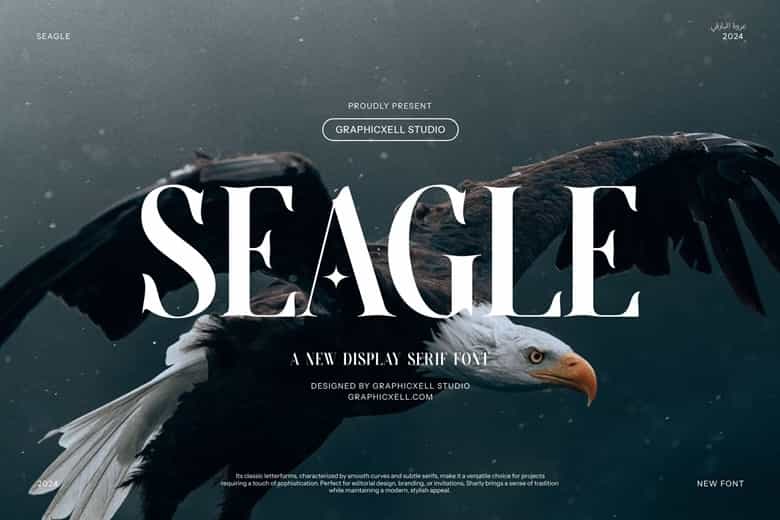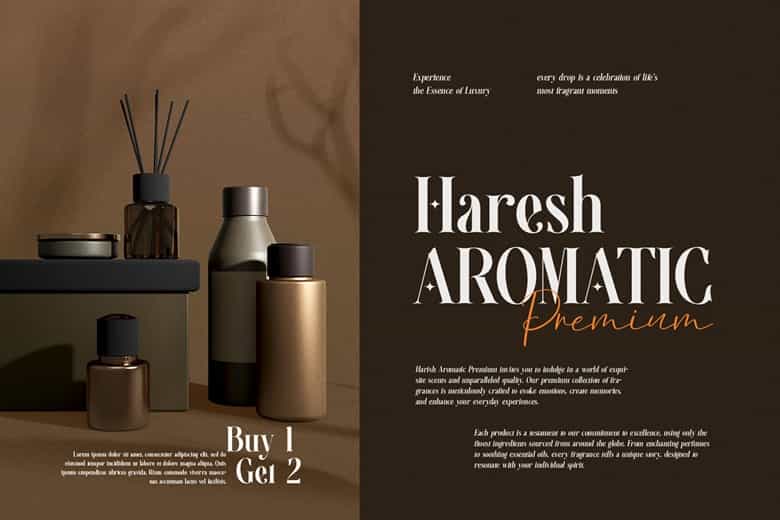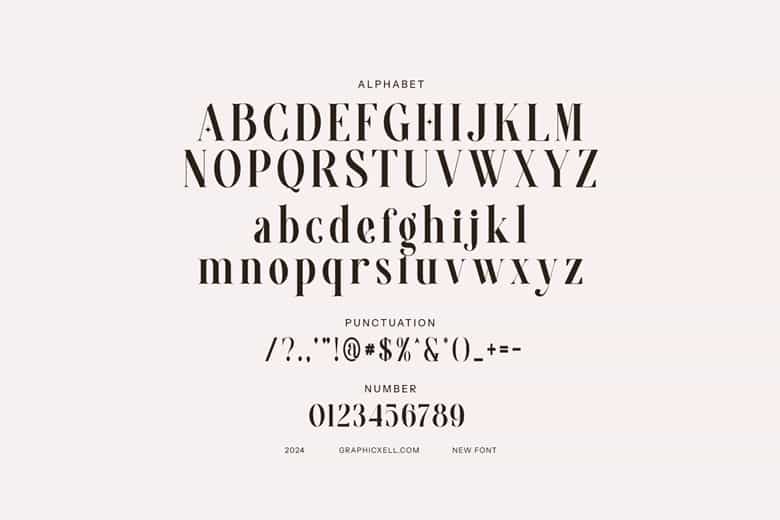
Discover Seagle Font, part of the Serif Display collection—a versatile and unique font perfect for adding a personal touch to your projects. Download it for free and enjoy crafting designs with style, from invitations to social media posts. This font is available exclusively for personal use, giving you the freedom to create without limits. Unlock your creativity with Seagle Font today!
Seagle is our new advanced ligature display serif font. This typeface has been designed with much attention so as to provide the best quality and longevity feel. The ligatures is what makes this typeface different and recognizable from the regular serif font.